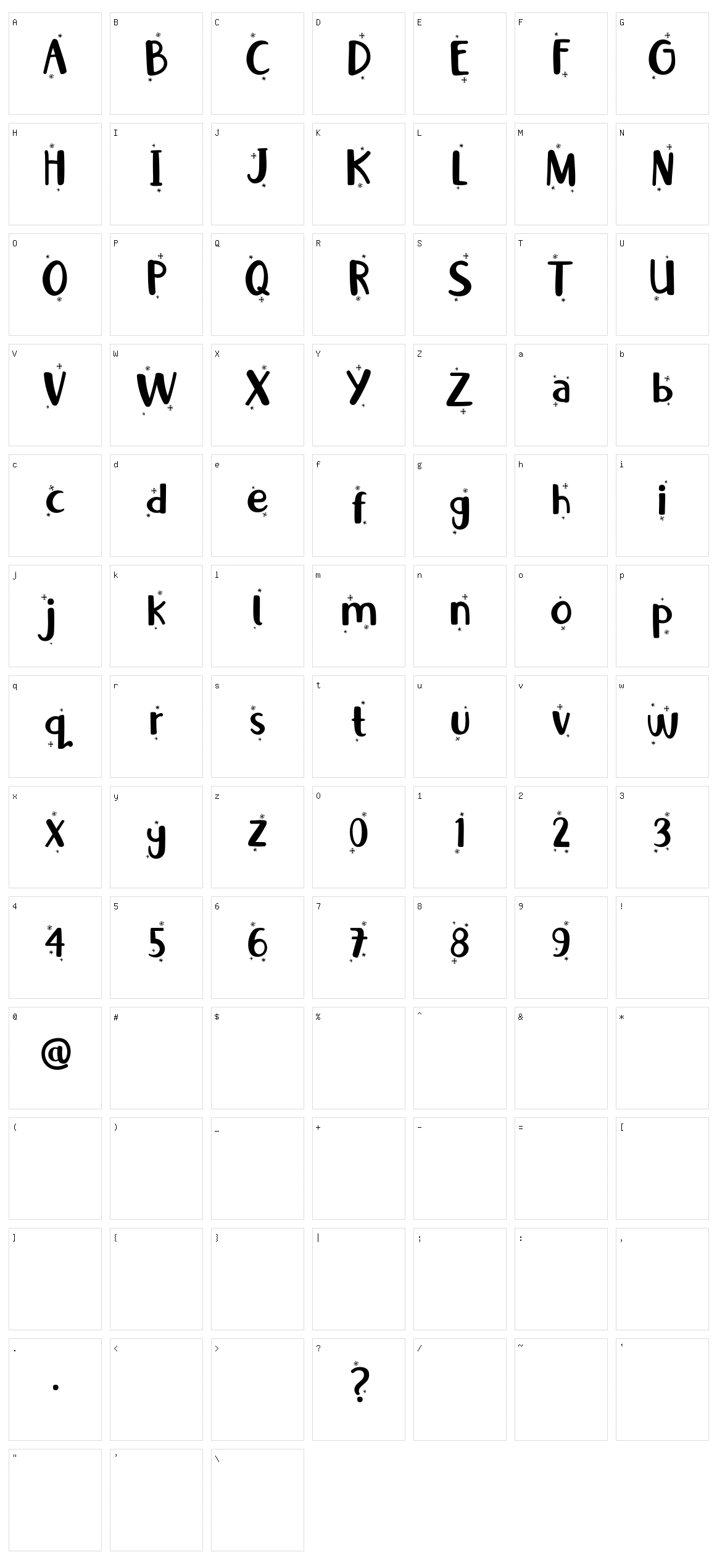
The free font Little Santa Flake is carefully designed by Mukh. std, showcasing a thoughtful balance of creativity and usability and falls under the Christmas font style. When you download the ZIP file, it contains only 62.8 KB of font files, making it lightweight and quick to download. Please review the license details below to understand permitted usage and distribution rights. If license information is not available, we recommend using this font for personal projects only or contacting the author directly for commercial usage permissions.